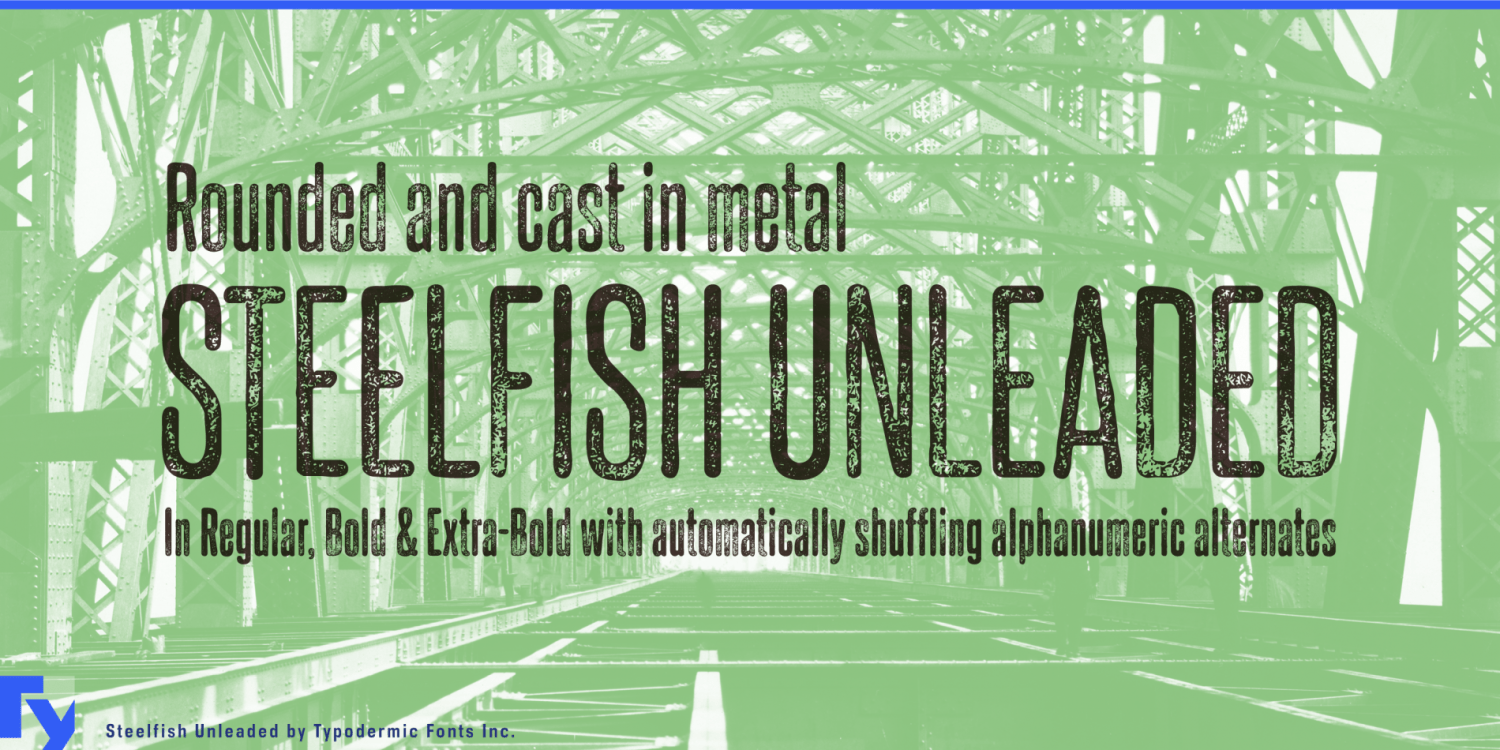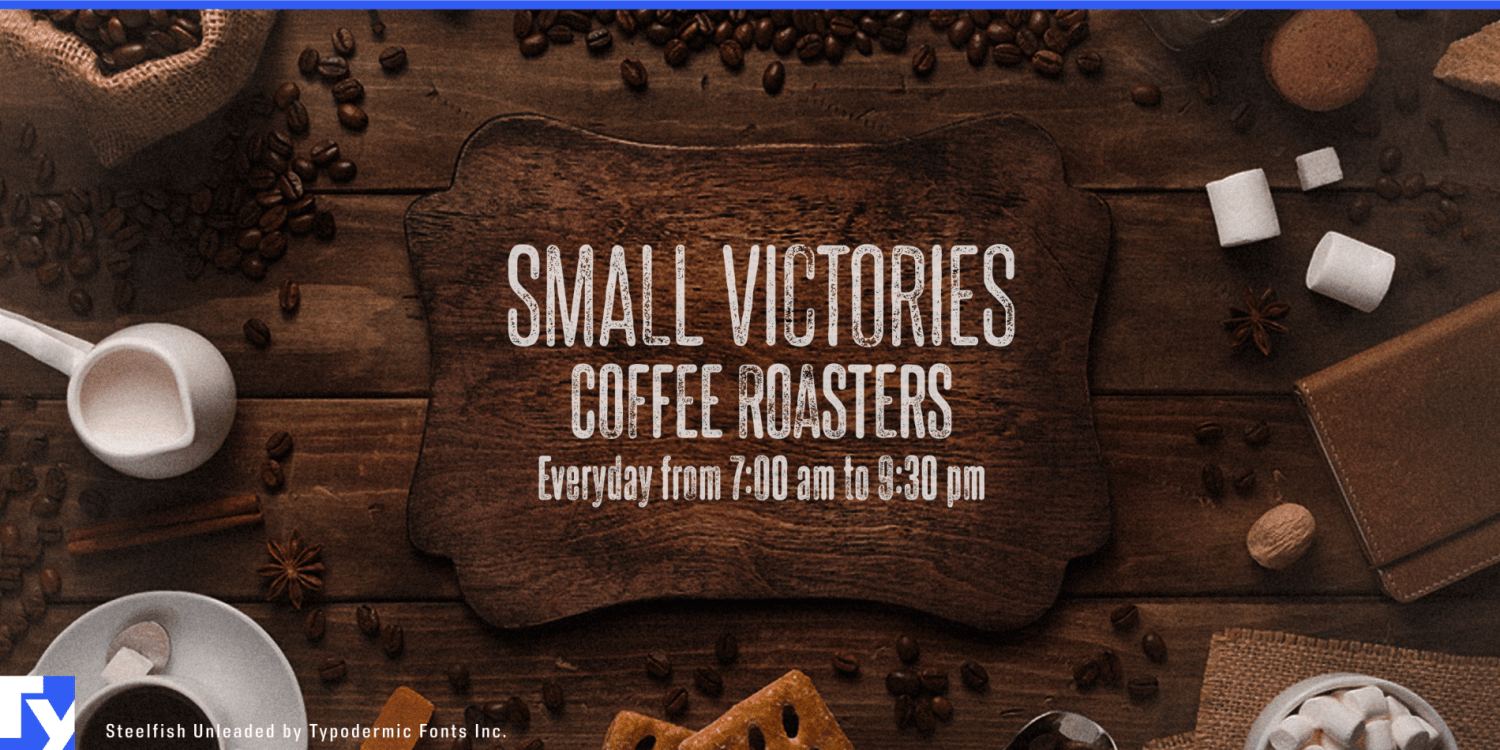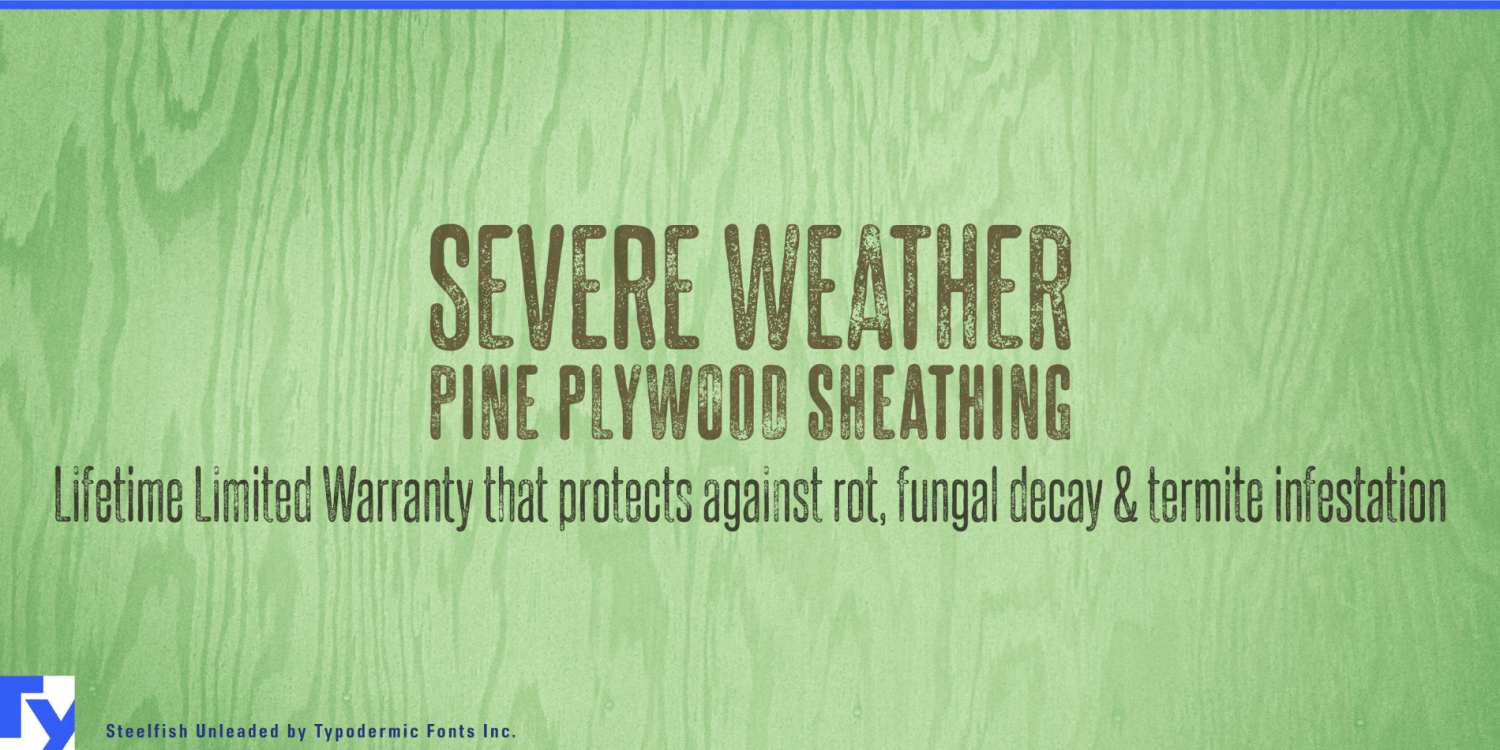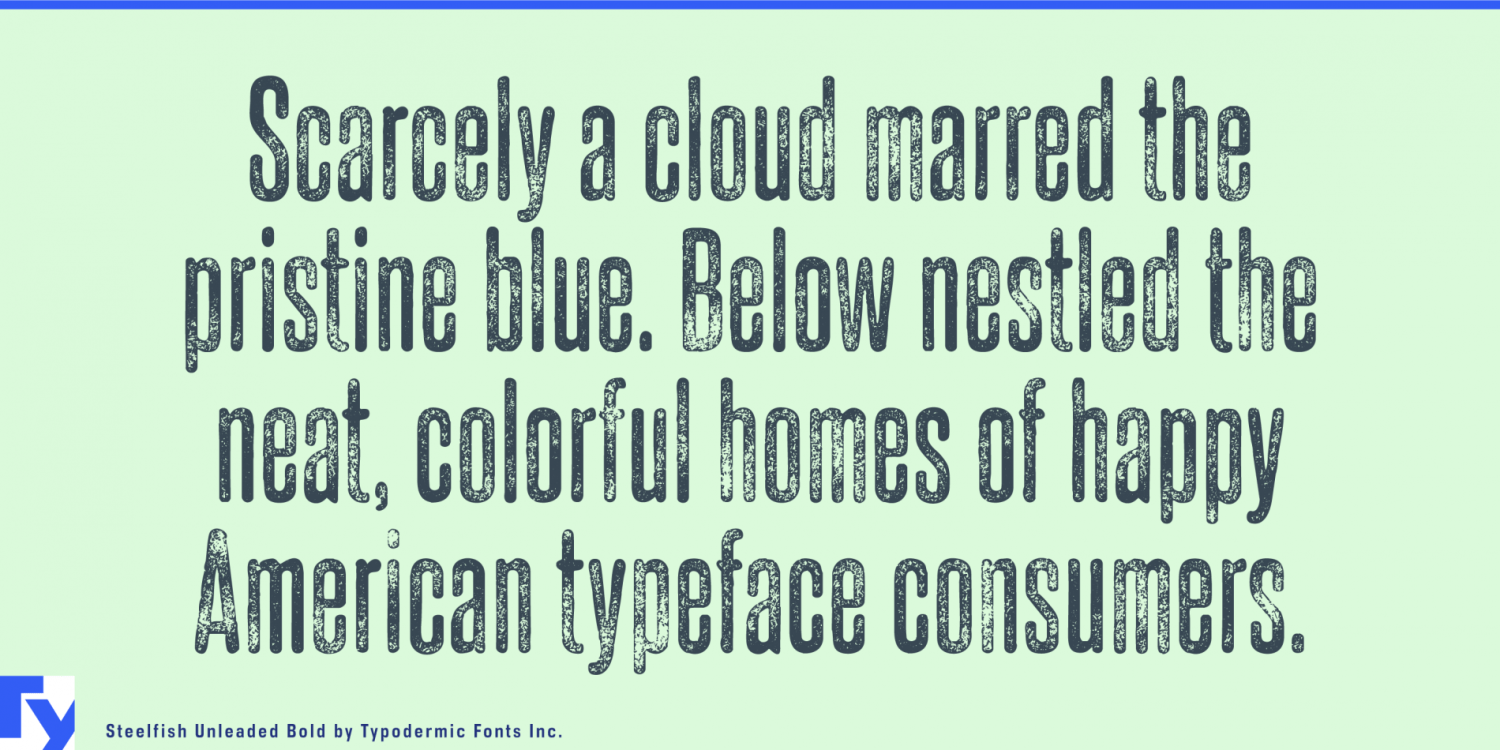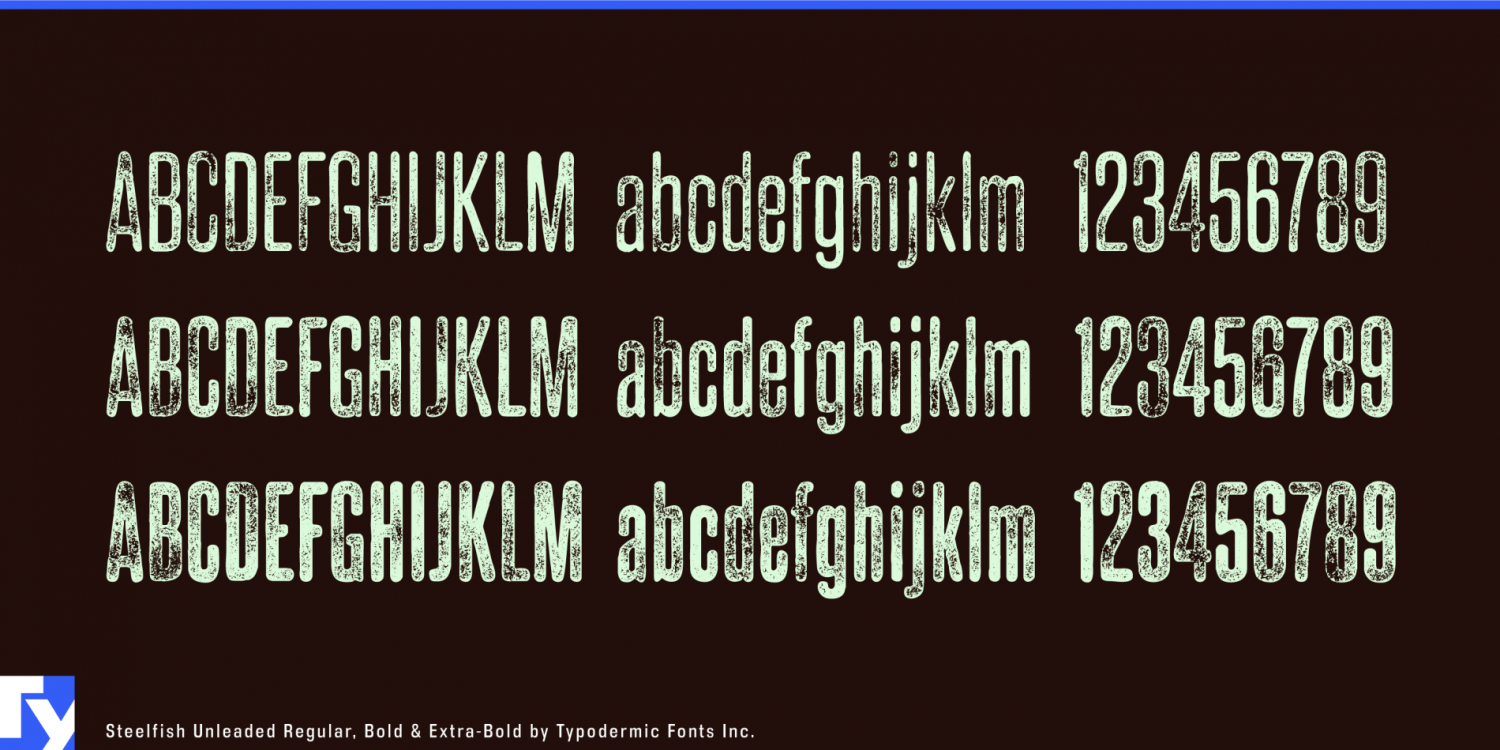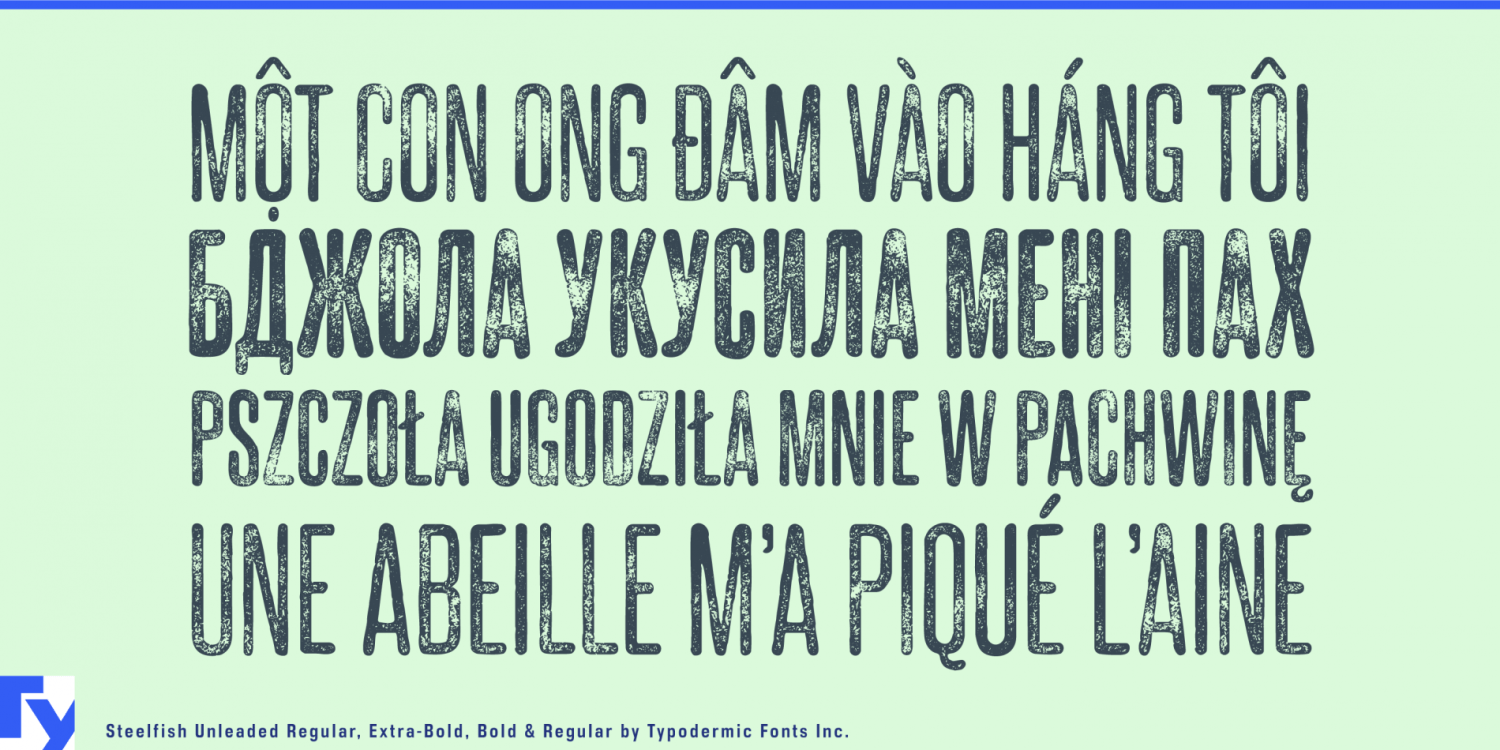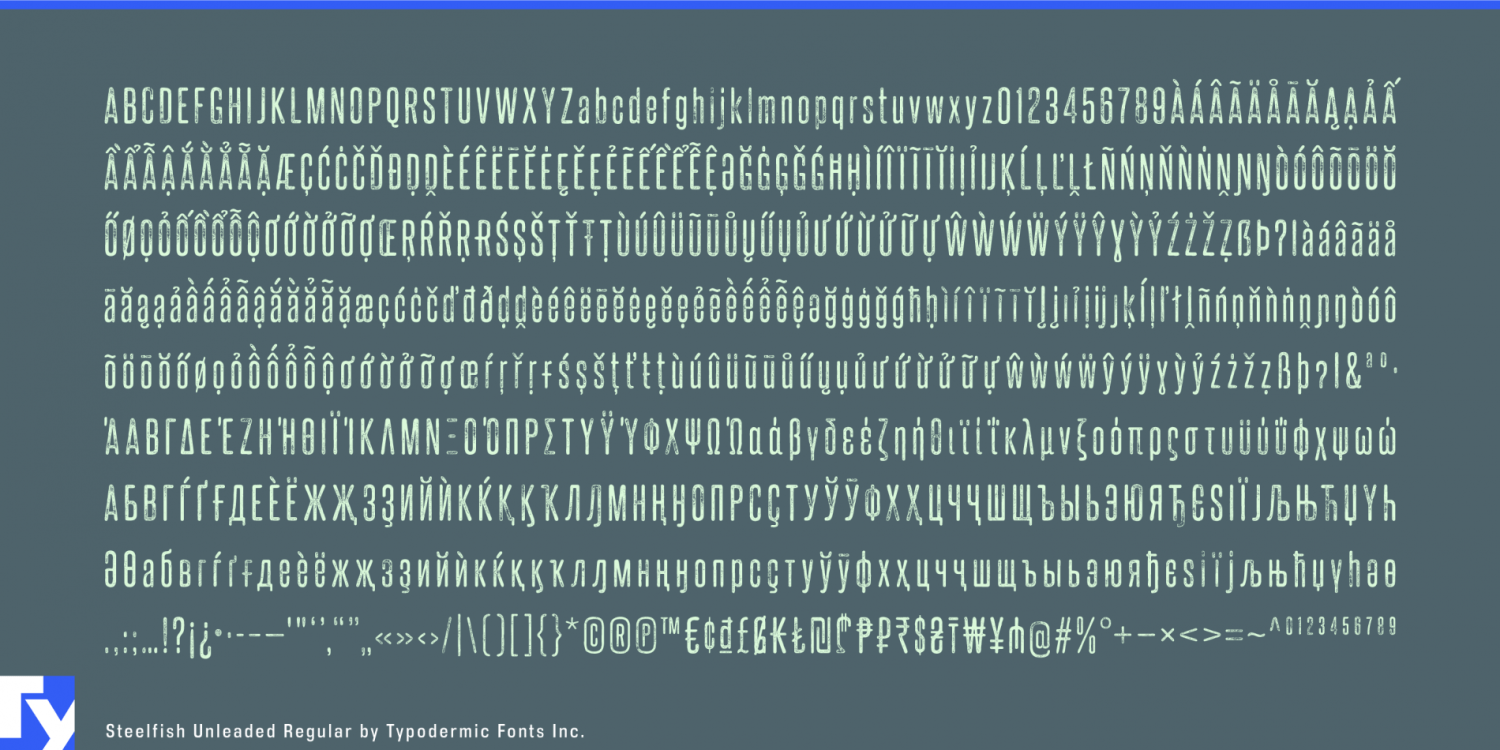
Steelfish Unleaded
The place is new; the typography needs to look like it has been there for years. Steelfish Unleaded combines the ultra-condensed proportions of Steelfish with softened corners and a restrained weathered surface, giving freshly designed lettering the look of paint or enamel that has faded and worn over time.
The distress is milder than heavy grunge. The letters remain clear and economical while their surfaces pick up enough irregularity to suggest age. Regular, Bold and Extra-Bold provide a compact hierarchy for names, headings and short display copy. Alternate alphanumeric forms help repeated characters avoid identical wear patterns.
Adaptive-reuse hospitality is a natural setting. Converted warehouses, railway buildings, factories and dockside properties often become hotels, food halls, retail complexes and entertainment destinations whose branding is brand new even when the architecture is not. Steelfish Unleaded helps fresh graphics sit more naturally against brick, timber, tile and old metal. Property names, amenity headings, tenant directories and zone identifiers gain patina without relying on ornate period lettering.
Market halls and destination food spaces present a similar problem. Entrance signs, vendor directories, category headings, event programs and merchandise need a common identity that feels established rather than recently installed. The narrow proportions also suit columns, directory panels and vertical signs.
Mountain lodges, lake resorts, marinas and trail centers can use the family for cabin names, activity headings, rental-zone graphics, merchandise and promotional displays that need to belong beside timber, stone and weather-exposed surfaces. Its softer wear suggests use and exposure without turning aggressive.
The same quality can work for timber products, exterior cladding, decking and landscaping materials. Product families, sample boards, dealer displays and trade-show graphics gain a weathered surface while the narrow structure leaves room for long series names.
Steelfish Unleaded belongs to the broader Steelfish group. The original Steelfish keeps the ultra-condensed structure clean for dense information systems; Steelfish Rounded softens it for narrow consumer-facing surfaces; Steelfish Steeled adds controlled industrial wear for tools, parts and workwear; and Steelfish Hammer carries a rougher texture through live-event and campaign systems. Steelfish Unleaded is the branch for softer accumulated wear: typography that looks weathered rather than attacked.